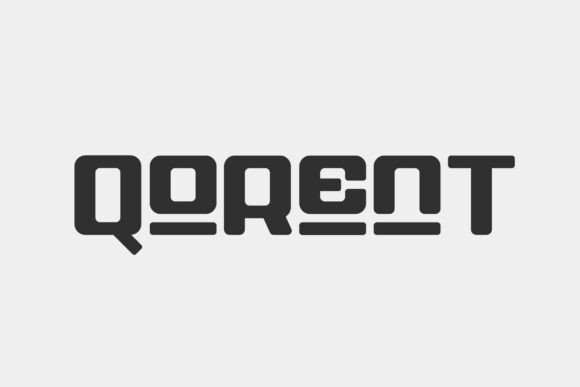
Qorent is a modern sans display font that brings a fresh personality to your typography. With bold shapes, distinct curves, and sharp details, it blends creativity with clean design, making it ideal for a variety of visual projects. If you're looking for a high-quality font that stands out, the Qorent font download is an excellent choice. Whether you're working on logos, branding, or social media content, Qorent offers a versatile and stylish solution.
What sets Qorent apart in the Display category is its balance between elegance and impact. It’s designed to be both legible and visually striking, ensuring it works well in both large and small formats. For designers seeking a premium Display font, Qorent provides a professional edge without sacrificing style.
Design & Style Analysis
Qorent's visual personality is defined by its confident, modern aesthetic. The font features a strong, geometric structure that gives it a contemporary feel while maintaining readability. Its weight distribution is carefully balanced, allowing it to work effectively in both headlines and body text when used appropriately.
Letterforms
The letterforms in Qorent are characterized by their clean lines and subtle curves. This combination creates a sense of movement and energy, making it particularly effective for eye-catching designs. The uppercase letters are especially notable for their boldness and clarity, while the lowercase forms maintain a refined and approachable look.
Weight & Spacing
Qorent comes in a range of weights, from light to heavy, giving designers flexibility depending on the project's needs. The spacing is generous enough to ensure legibility at smaller sizes but tight enough to create a cohesive and professional appearance. This makes it suitable for a wide range of applications, from website headers to packaging designs.
Best Uses for Qorent
Qorent is a versatile font that can enhance a variety of design projects. Whether you're working on a logo, a brand identity, or a marketing campaign, this font can add a touch of sophistication and modernity.
Qorent for Logo Design
When designing a logo, it's essential to choose a font that reflects the brand's identity. Qorent's bold and clean design makes it an excellent choice for logos that require a strong visual presence. Its ability to convey professionalism and creativity makes it ideal for businesses looking to make a lasting impression.
Qorent for Branding
Branding requires consistency and clarity, and Qorent delivers both. Its versatility allows it to be used across different mediums, from business cards to digital ads. Whether you're creating a new brand or rebranding an existing one, Qorent provides a reliable and stylish option.
Qorent for Wedding Invitations
Wedding invitations often require a mix of elegance and personality, and Qorent offers just that. Its modern yet timeless look makes it perfect for crafting invitations that stand out while still feeling refined. Whether you're designing for a traditional or contemporary wedding, Qorent adds a unique touch that enhances the overall aesthetic.
Font Pairing & Combinations
Pairing Qorent with other fonts can help create a more dynamic and visually appealing design. By combining it with complementary typefaces, you can achieve a balanced look that enhances the overall message of your project.
One effective pairing is Qorent with a serif font. This contrast can add depth and interest to your design, making it ideal for editorial layouts or print materials. Another option is to pair Qorent with a script font, which can add a personal and artistic touch to your work.
For a more minimalistic approach, consider pairing Qorent with a clean, simple sans-serif. This combination ensures readability while maintaining a modern and professional appearance. What fonts pair well with Qorent? The answer depends on your design goals, but with careful selection, you can create a cohesive and impactful look.
When comparing Qorent vs similar fonts, it's helpful to evaluate factors such as weight, spacing, and overall aesthetic. This comparison can guide your decision-making process and help you choose the best font for your specific project. Whether you're looking for a premium Display font or a free Display font for Fonts, Qorent offers a compelling option that meets a wide range of design needs.